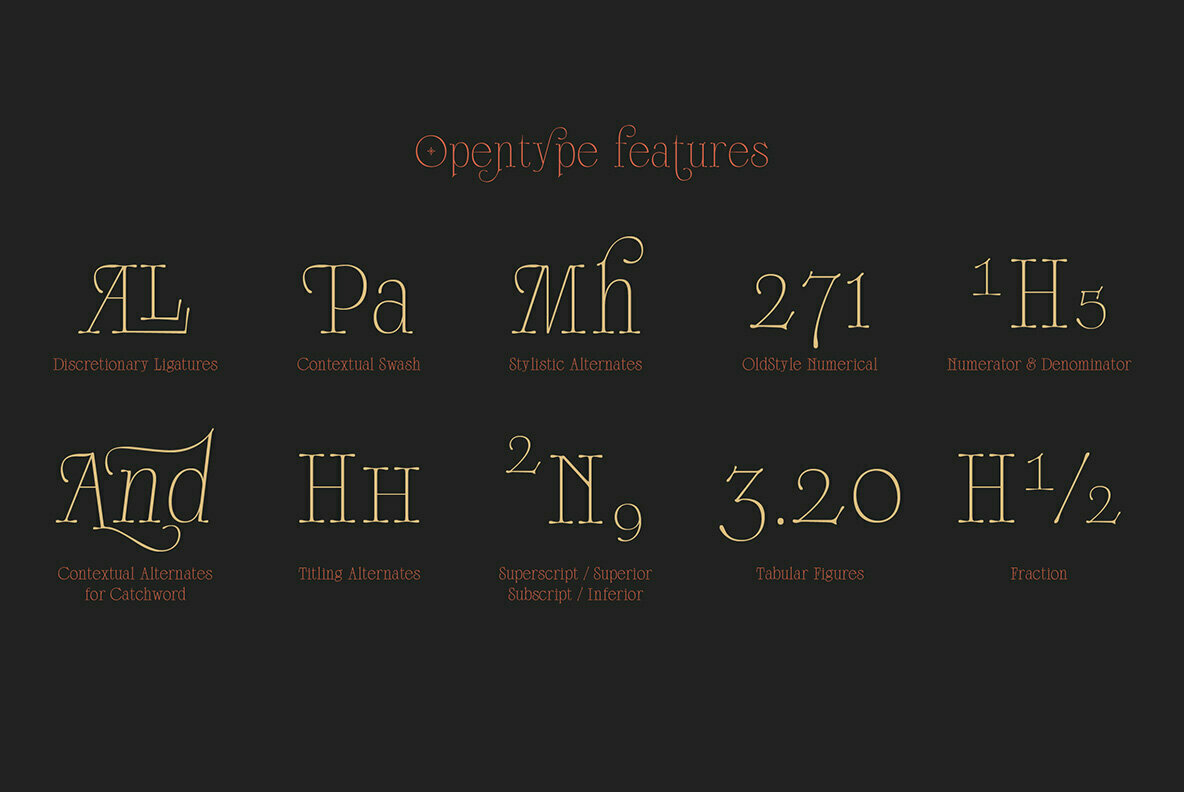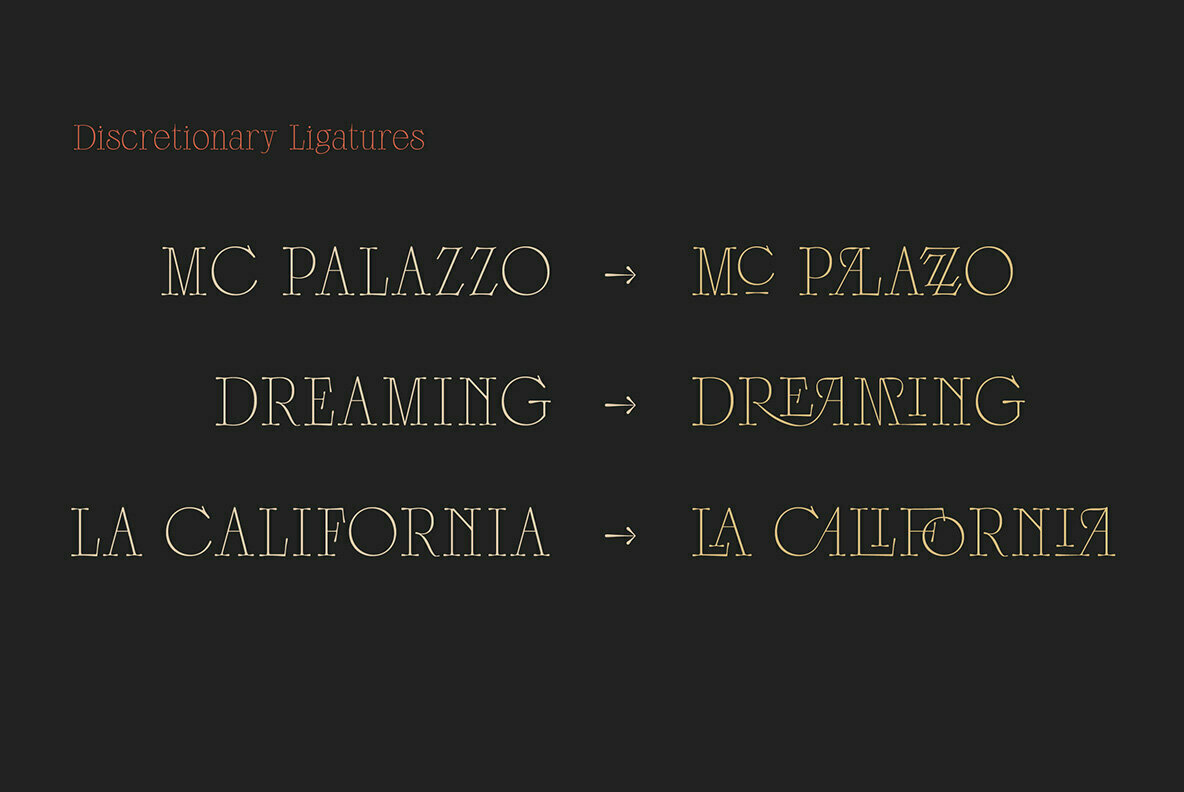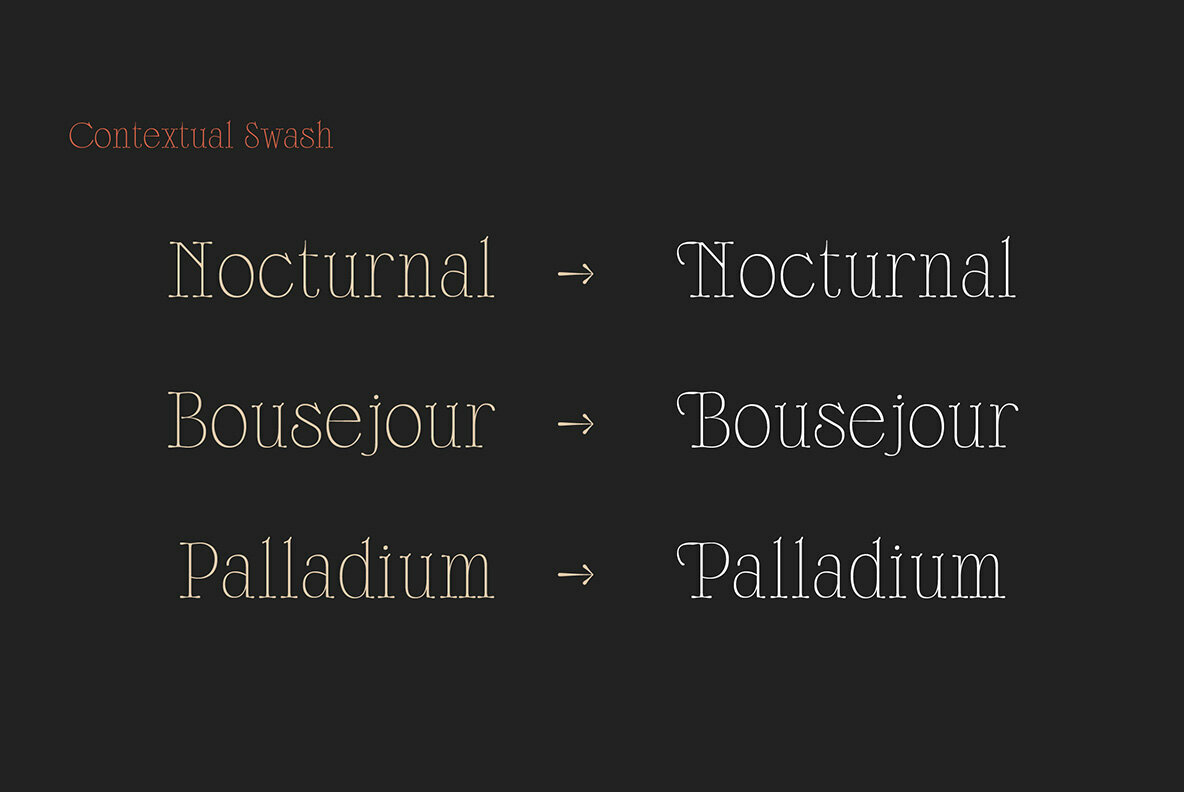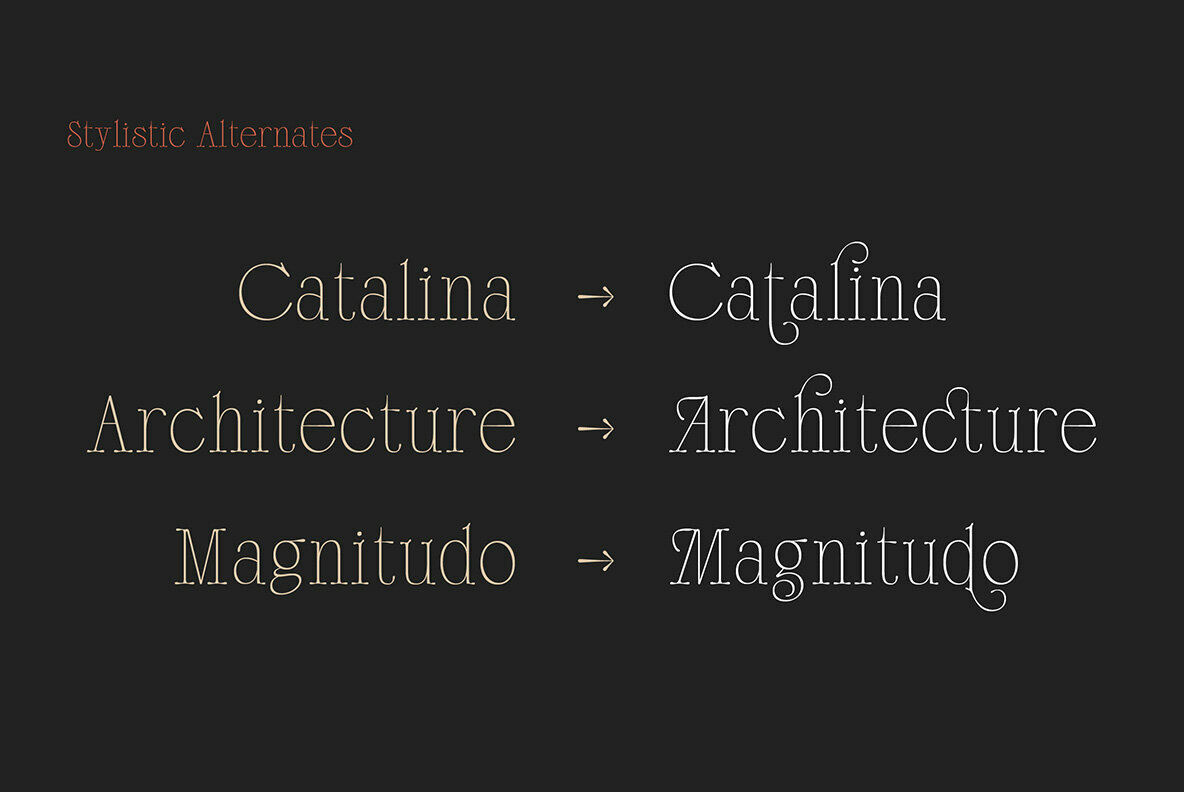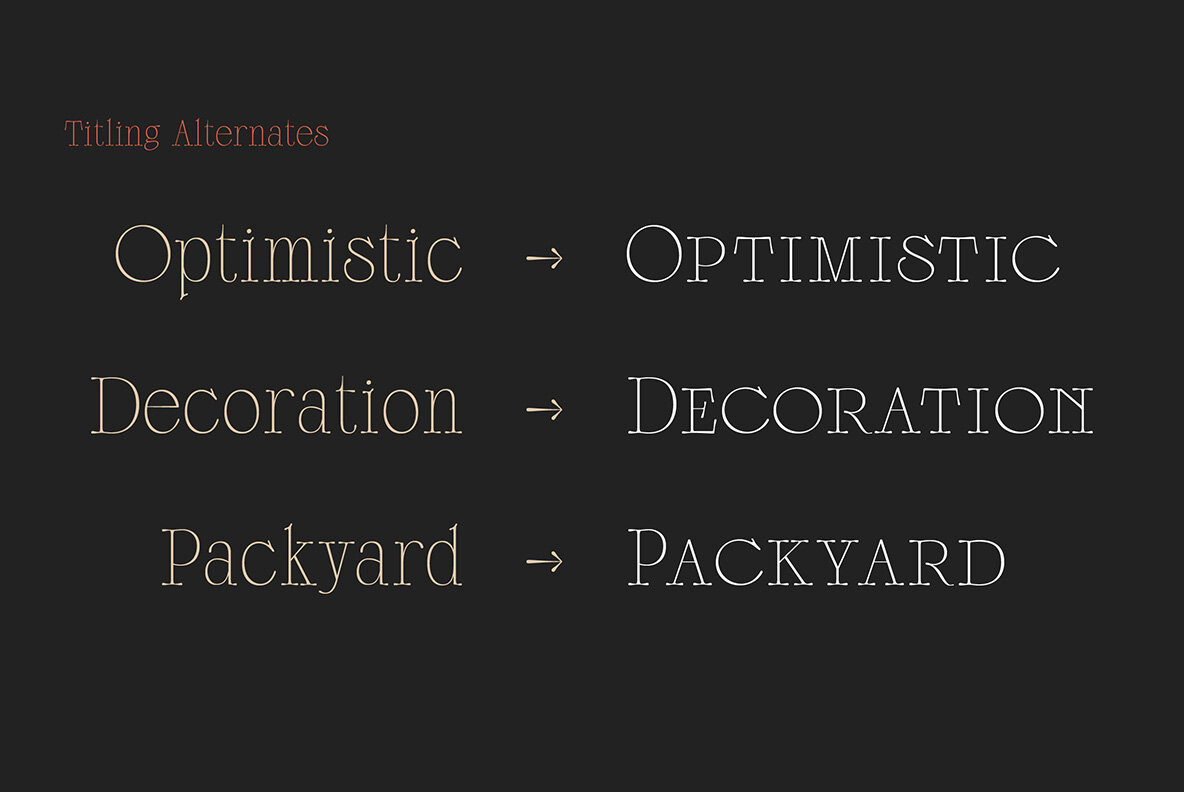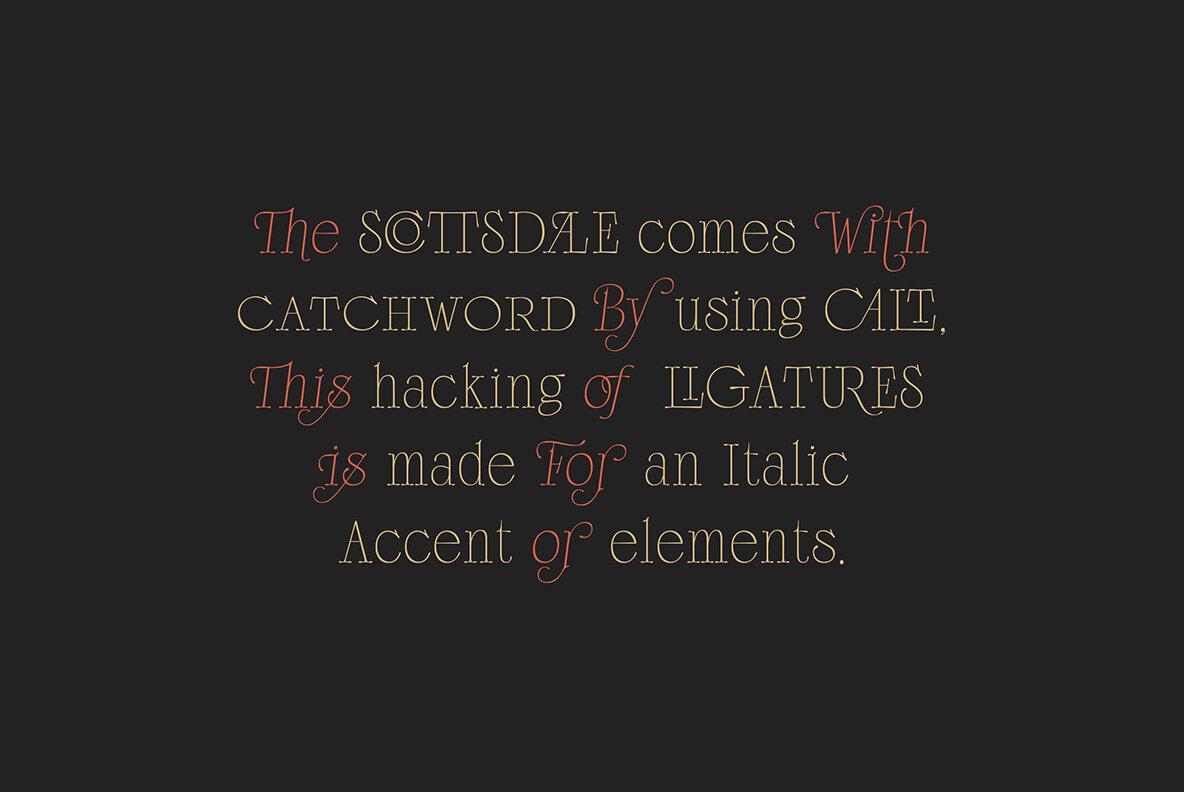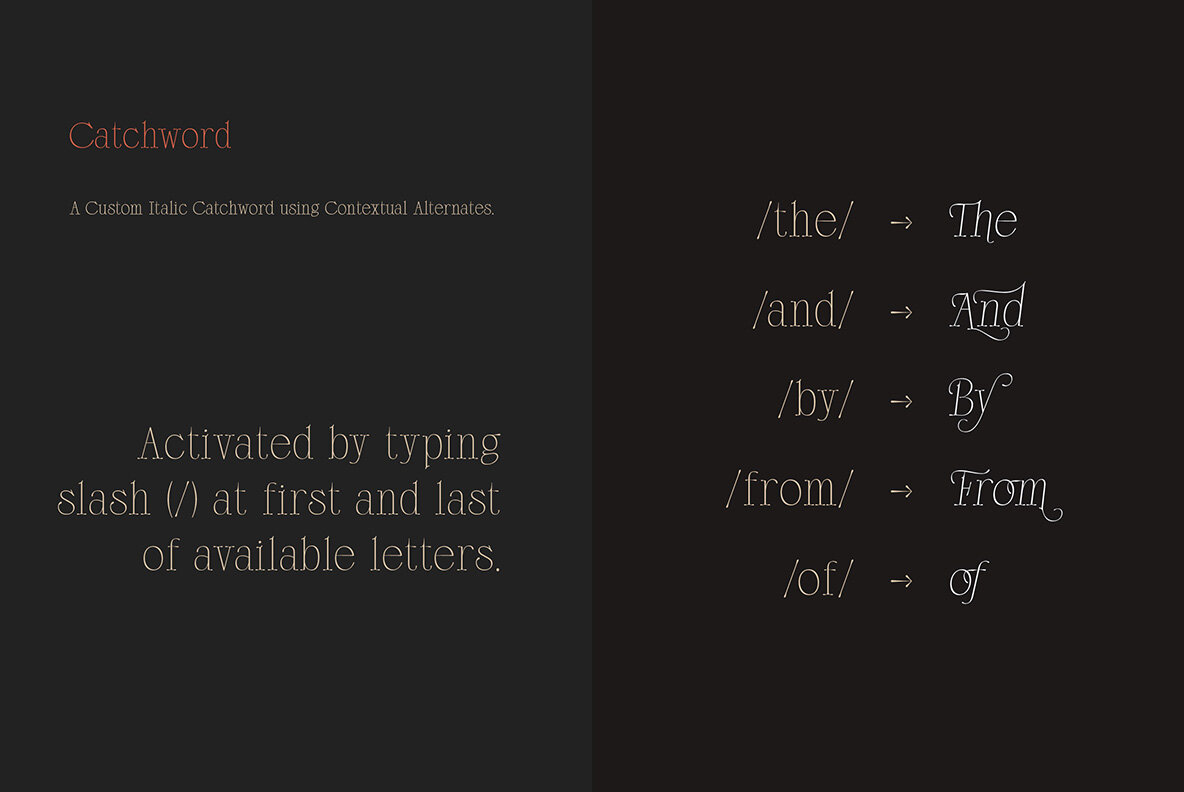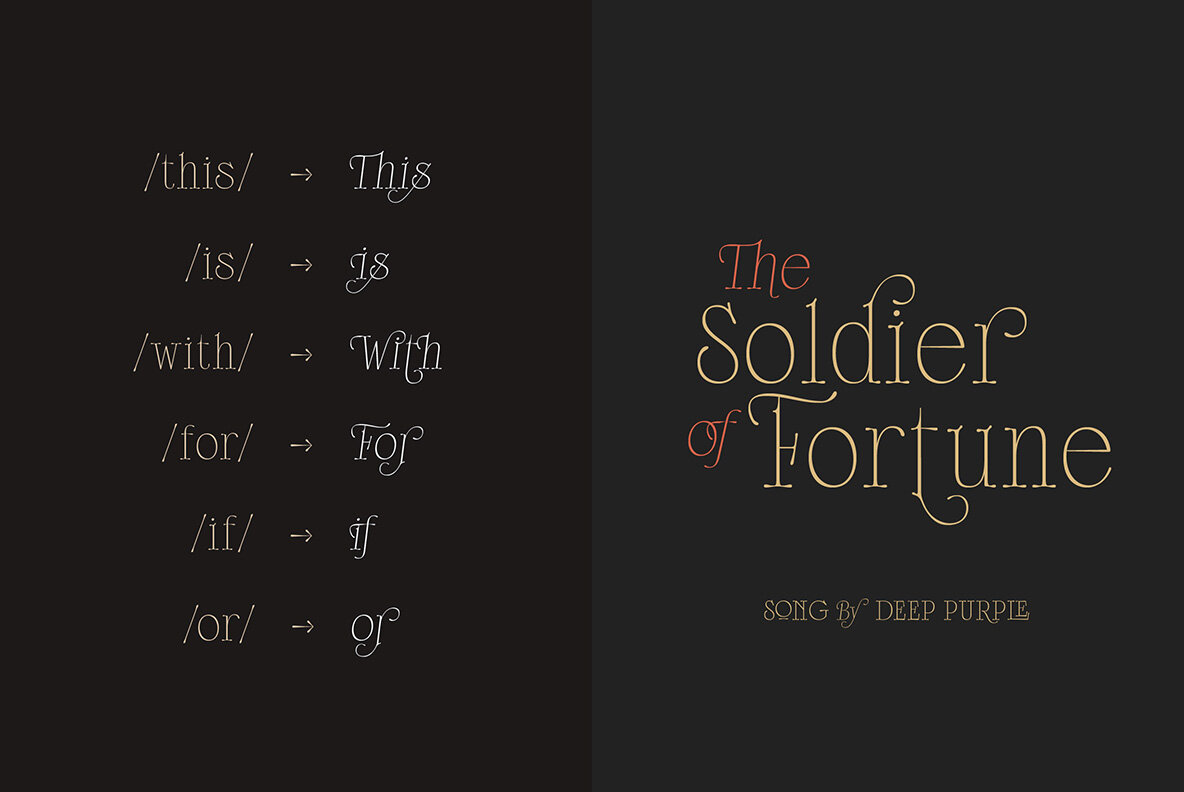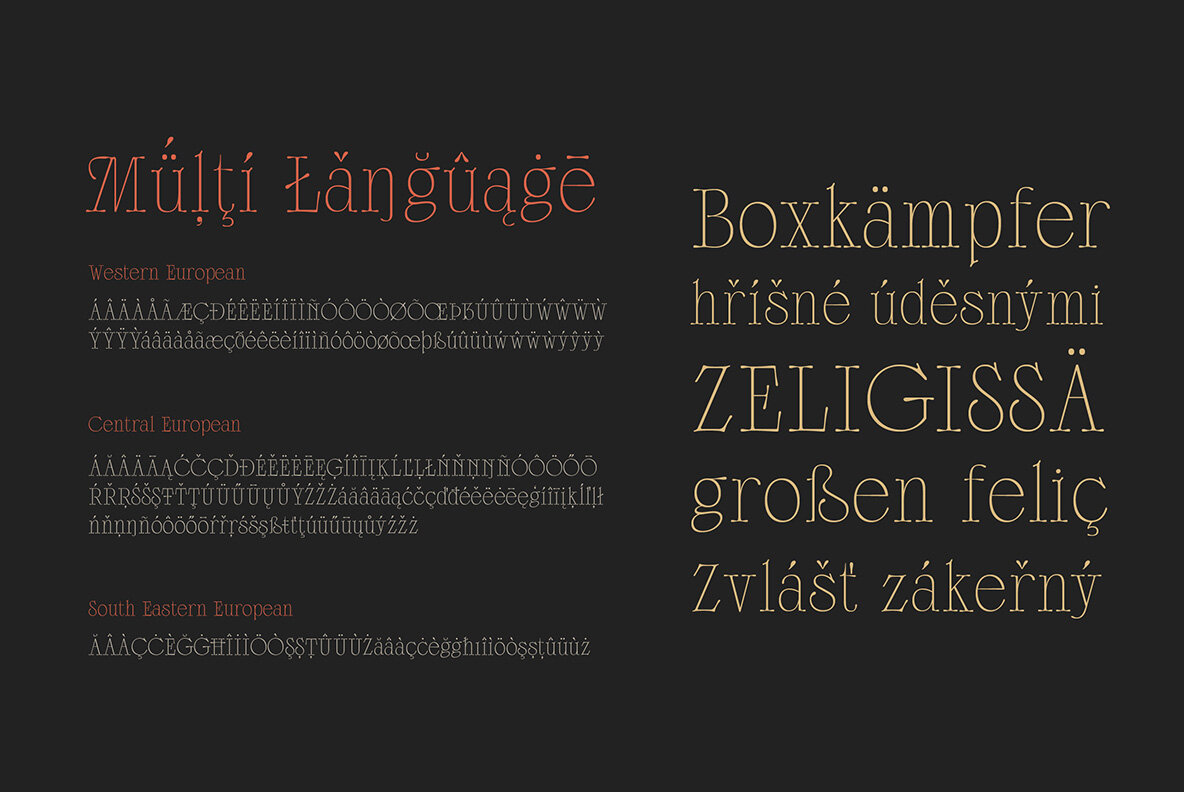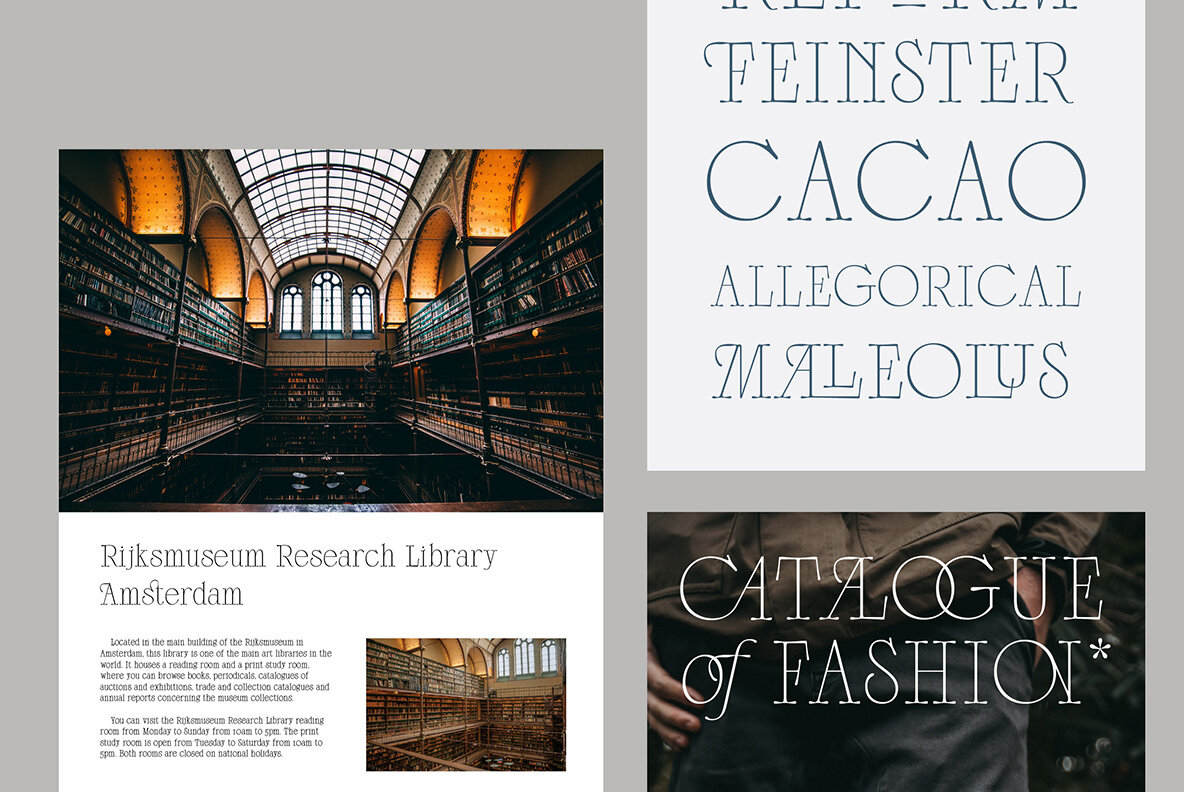
Scottsdale Font
Scottsdale embodies the perfect union of classic elegance and contemporary simplicity, appealing to a wide spectrum of design aesthetics. This serif font exudes a sense of sharp sophistication and comfort with its unique character features, ranging from subtle to bold rounded serifs. Its thin and light strokes encapsulate modern minimalism, making it a versatile choice for various design styles. While it is excellent for long text in lowercase, Scottsdale truly shines in headers and display purposes, captivating attention with its refined presence. Scottsdale offers extensive language support, accommodating an impressive array of global languages, making it an inclusive choice for international design projects.Scottsdale: A Sophisticated Serif for Modern Design